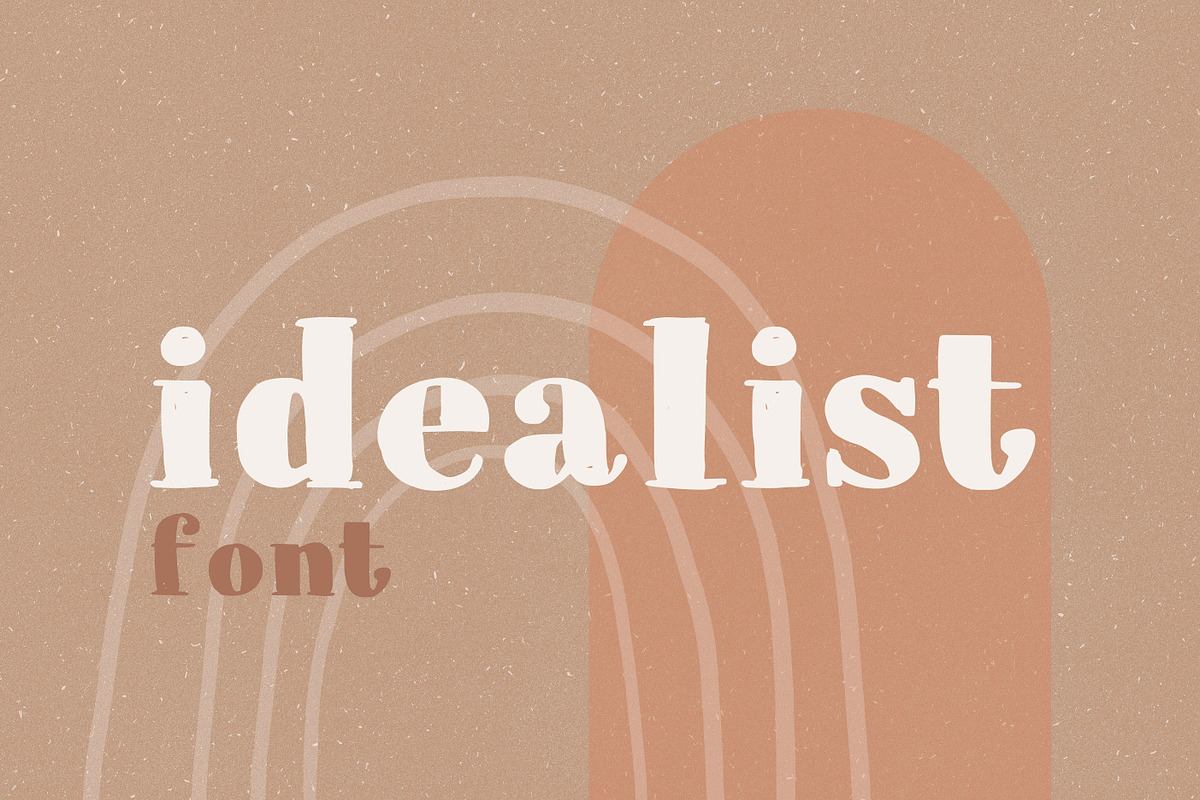
Make a statement with the raw charm of Bold Serif Font / Hand Drawn Serif Free Download. This unique serif font features strong, bold letterforms with a hand-drawn touch, giving it a personalized and organic feel. Perfect for branding, logos, packaging, posters, and projects that need a bold yet creative touch.
The hand-drawn strokes and irregularities in the font bring warmth and authenticity to your designs, while the bold serifs ensure that your text stands out. It includes uppercase and lowercase letters, numerals, punctuation, and stylistic alternates—ideal for testing powerful, custom layouts.